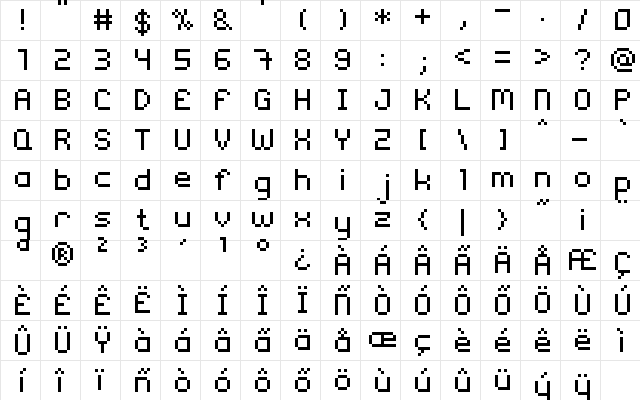
Rix Rix
| Foundry | Enrico Batista da Luz |
| Designer | Enrico Batista da Luz |
Design Context for Rix Typeface
Rix takes a measured approach to typography — its balanced proportions and neutral character make it a reliable workhorse for both digital and print work.